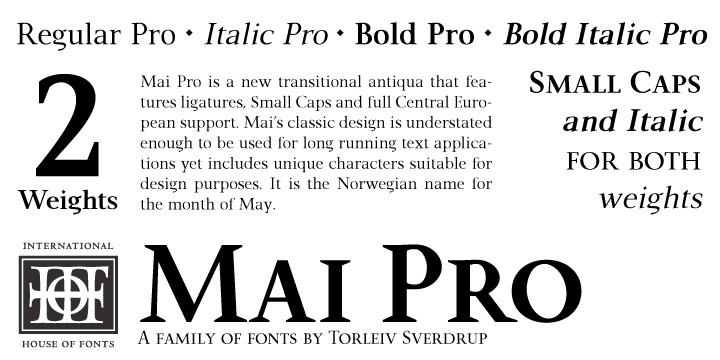
Mai Pro Font
Mai Pro Font is perfect for Asian cultural projects, Thai heritage exhibitions, Southeast Asian tourism materials, tropical spa branding, mindful wellness communications, meditation retreat promotions, traditional massage therapy signage, authentic Asian cuisine restaurants, peaceful sanctuary designs, and harmonious lifestyle brand communications.
What makes Mai Pro Font so exciting is its beautiful embodiment of Southeast Asian elegance and mindful serenity that captures the graceful spirit of Thai culture and the peaceful wisdom of Asian design philosophy through thoughtfully crafted typography. This culturally inspired typeface features harmonious letterforms with Asian-influenced proportions and serenity-inspired character variations that immediately convey peace, balance, and the transformative power of mindful living. The font's peaceful construction and culturally respectful aesthetic create an instant sense of Asian tranquility and cultural sophistication, making it ideal for projects that need to communicate mindful wellness, cultural appreciation, and the life-enhancing power of Eastern wisdom to audiences seeking authentic Asian experiences and meaningful cultural connections.
The Mai Pro Font family typically includes multiple harmonious weights and cultural styles, often featuring light through bold variations along with gracefully flowing italic versions and culturally appropriate alternatives. Asian-inspired font collections frequently offer extensive character sets including cultural symbols, peaceful ornaments, and traditional decorations that enhance the authentic Asian aesthetic and provide designers with comprehensive tools for creating genuinely respectful and culturally appropriate communications.
The peaceful nature of Mai Pro Font makes it particularly effective for targeting demographics that value mindful living and Asian cultural wisdom in their wellness and lifestyle choices. Wellness marketers and cultural tourism professionals will find this font especially valuable for materials that must establish immediate cultural credibility and connect with audiences seeking authentic Asian experiences and meaningful mindfulness engagement.
What sets Mai Pro Font apart is its ability to convey cultural authenticity while maintaining the universal appeal necessary for effective international communication and cross-cultural appreciation. This balanced characteristic makes it suitable for both traditional Asian cultural applications and contemporary wellness contexts where projecting cultural respect and maintaining global accessibility must work together harmoniously.
Professional designers recognize that Mai Pro Font brings invaluable Asian credibility to projects across industries including wellness services, cultural tourism, mindful living, and authentic Asian experiences. Its peaceful character and cultural appeal make it essential for organizations whose mission centers on promoting Asian wisdom, celebrating cultural diversity, and creating meaningful connections between traditional Eastern values and contemporary mindful living.
The thoughtfully crafted cultural authenticity of Mai Pro Font ensures consistent peaceful messaging across all Asian-focused communication applications while honoring the fundamental importance of cultural respect and authentic representation in Southeast Asian typography.